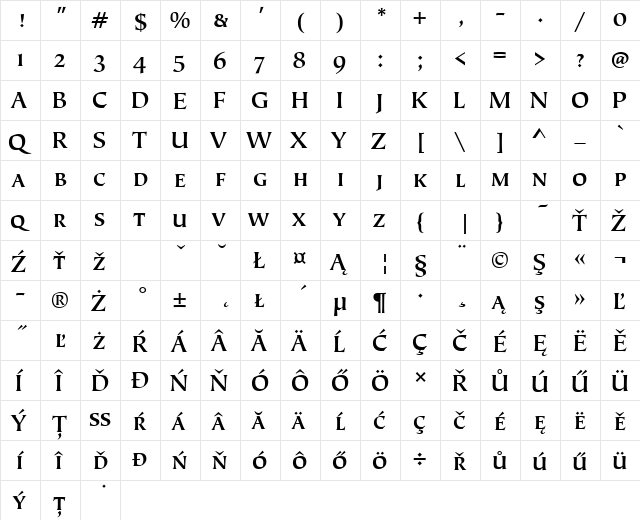
TiepoloSCItcTEEMed Regular
Design Context for TiepoloSCItcTEEMed Typeface
TiepoloSCItcTEEMed offers clean, dependable letterforms without strong stylistic allegiance, making it a practical choice for designers who need flexibility.